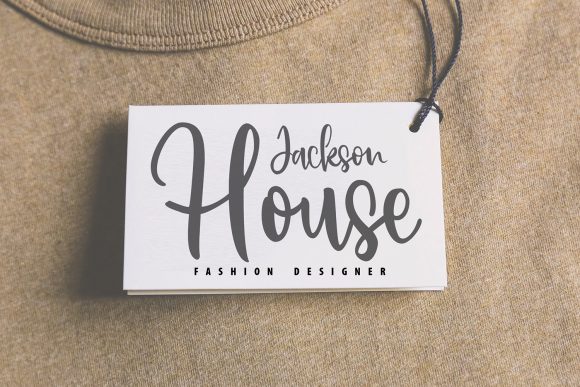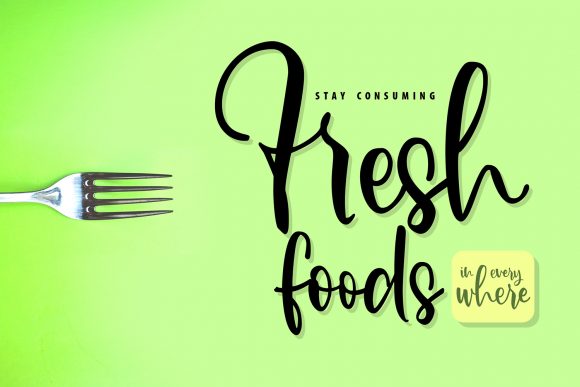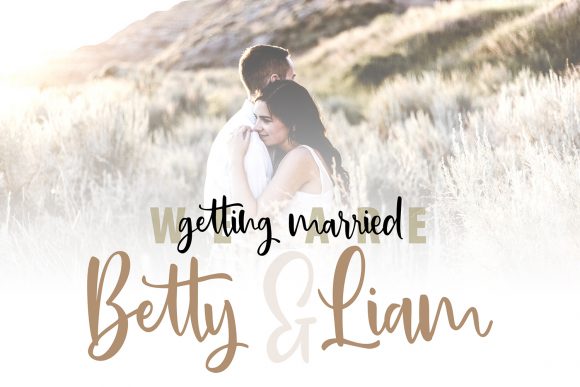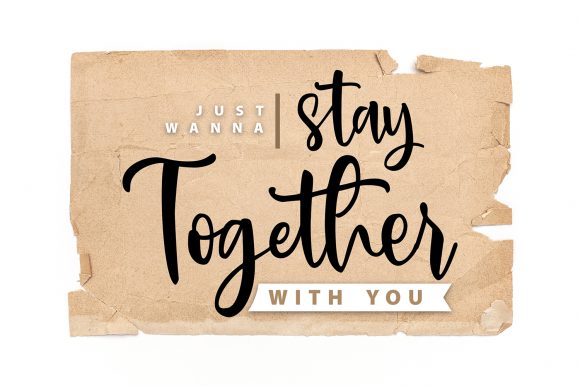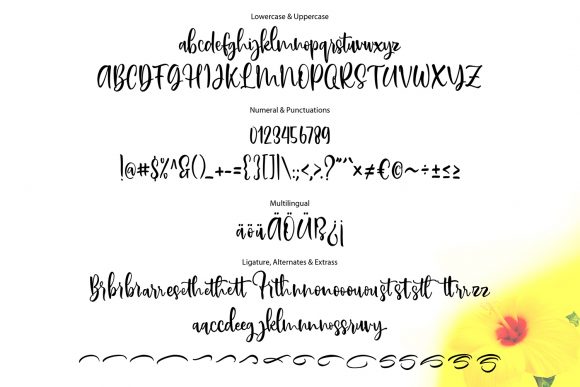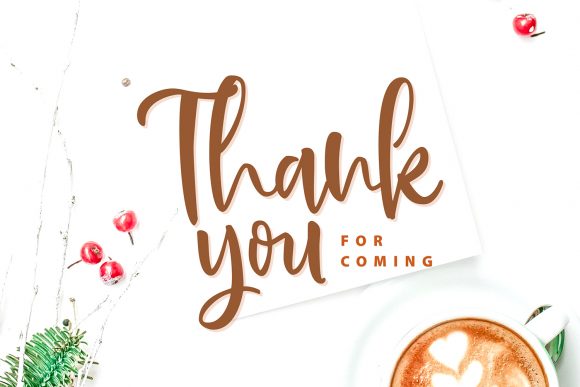
The Designer’s Delight: A Deep Dive into Bristly Font
I’ll never forget the time I was working on a project for a client who wanted a elegant, handwritten font to convey a sense of sophistication and whimsy. I scoured the internet, trying font after font, but nothing seemed quite right. That was until I stumbled upon Bristly Font. ✨ Its delicate, well-rounded letters and incredibly versatile style won me over, and I’ve been obsessed ever since.
An Honest Review of Bristly Font
- ✨ Delicate and elegant handwritten style that’s perfect for a variety of design projects
- ✅ Well-rounded letters that add a touch of sophistication to any design
- 🎉 Incredibly versatile style that works well for both digital and print projects
- 🔍 PUA encoded for easy access to glyphs and swashes
While Bristly Font is an amazing addition to any designer’s toolkit, there are a few things to keep in mind. 🤔 For example, some users may find that the font’s delicate style can be a bit finicky when it comes to scaling. ⚠️ Additionally, the font’s PUA encoding may require some extra steps to access certain glyphs and swashes.
The Story Behind Bristly Font
Bristly Font was designed with the intention of creating a beautiful, elegant handwritten font that would add a touch of sophistication to any design project. The designer wanted to create a font that was both versatile and stylish, with a unique personality that would stand out from the crowd.
Q: What is PUA encoding, and how does it work?
PUA (Private Use Area) encoding is a way of encoding fonts that allows for easy access to glyphs and swashes. This means that you can access all of the glyphs and swashes in Bristly Font with ease, making it simple to create beautiful, unique designs.
Q: Is Bristly Font suitable for digital use?
Absolutely! Bristly Font is designed to be versatile and works well for both digital and print projects. Its clear, legible style makes it perfect for use on websites, social media, and other digital platforms.